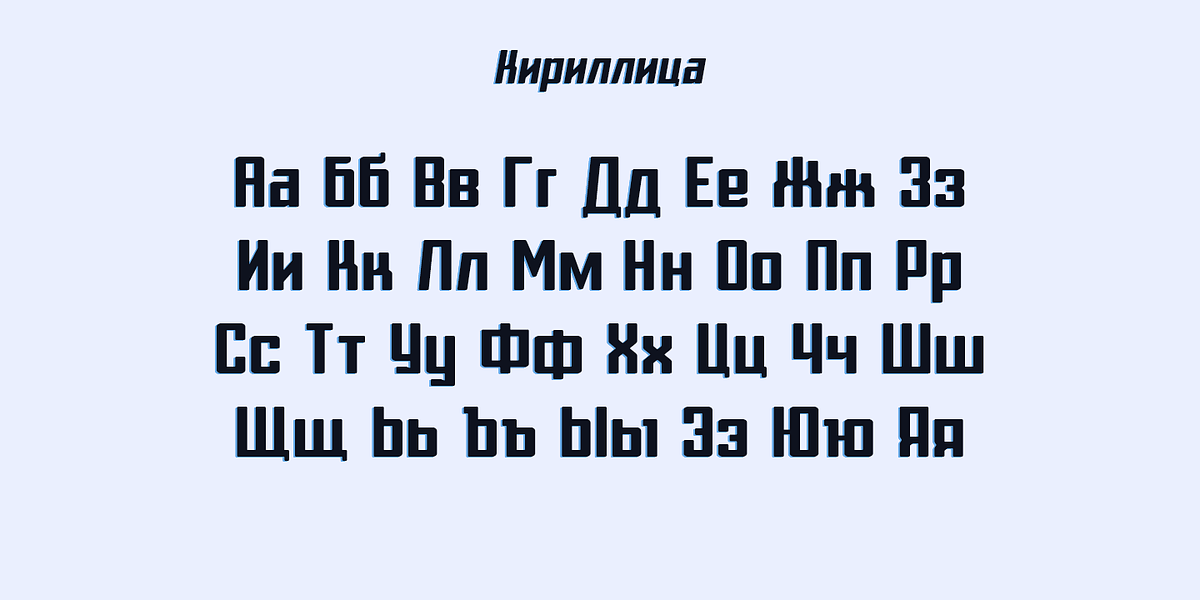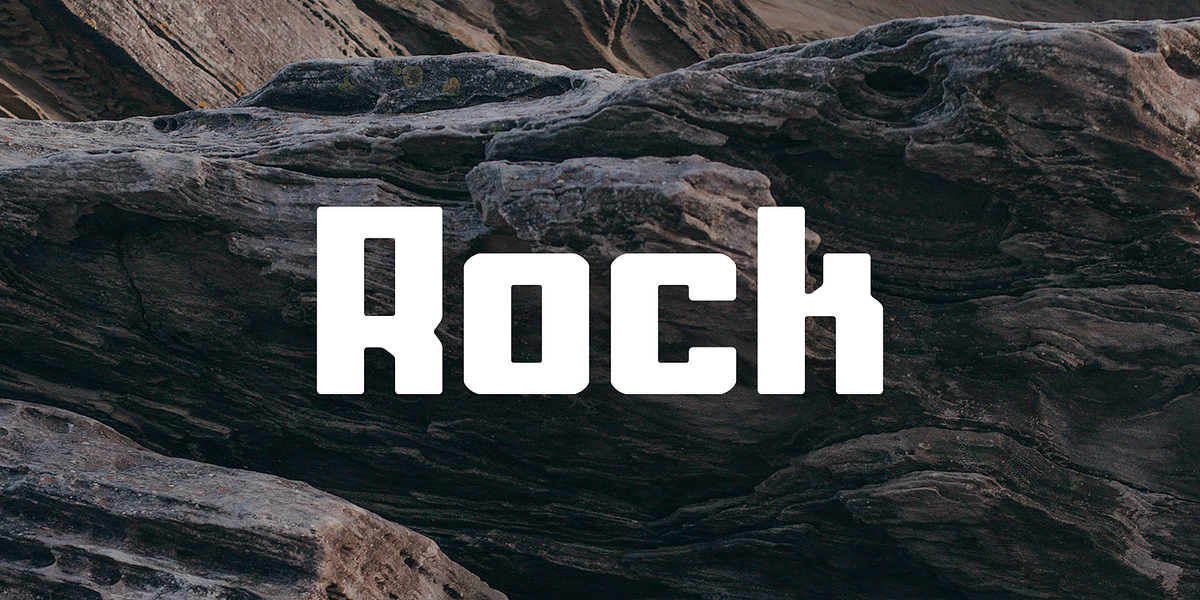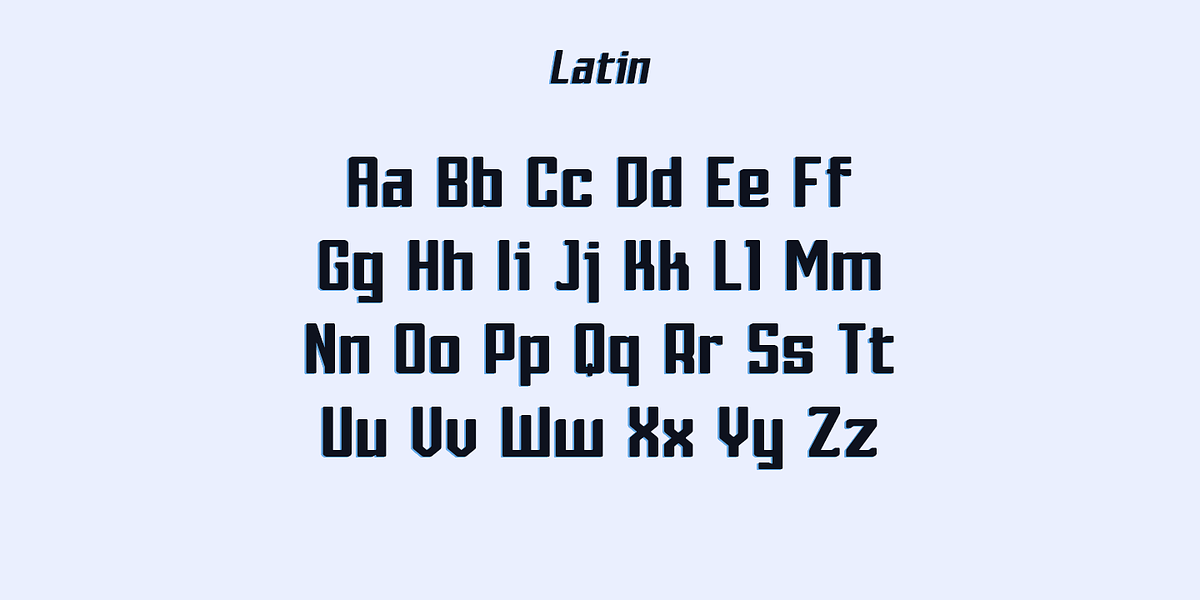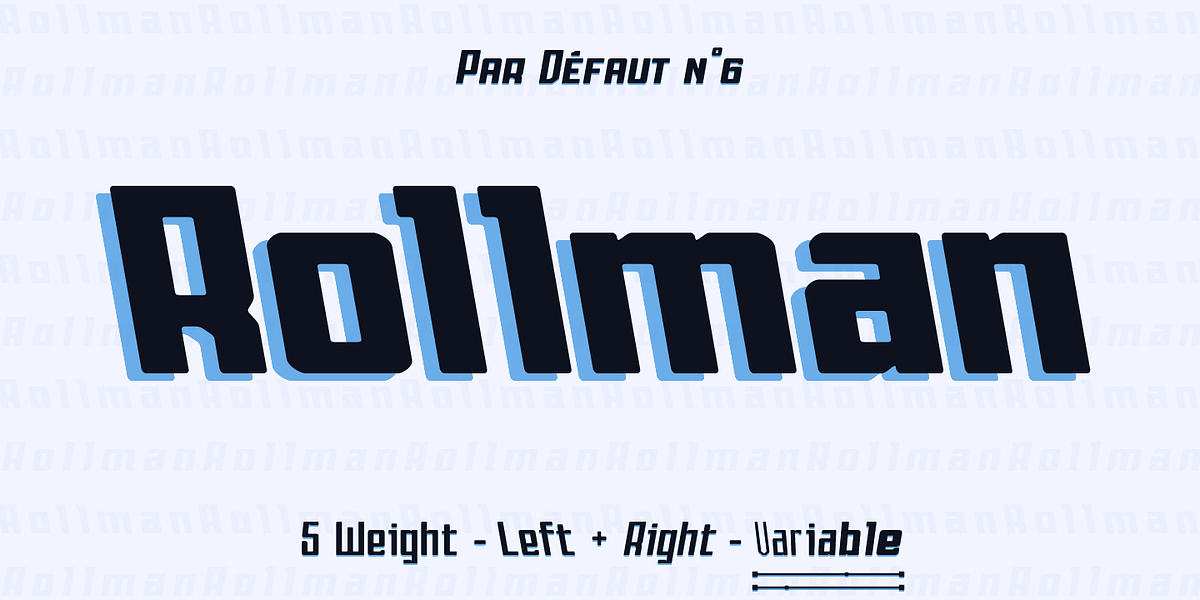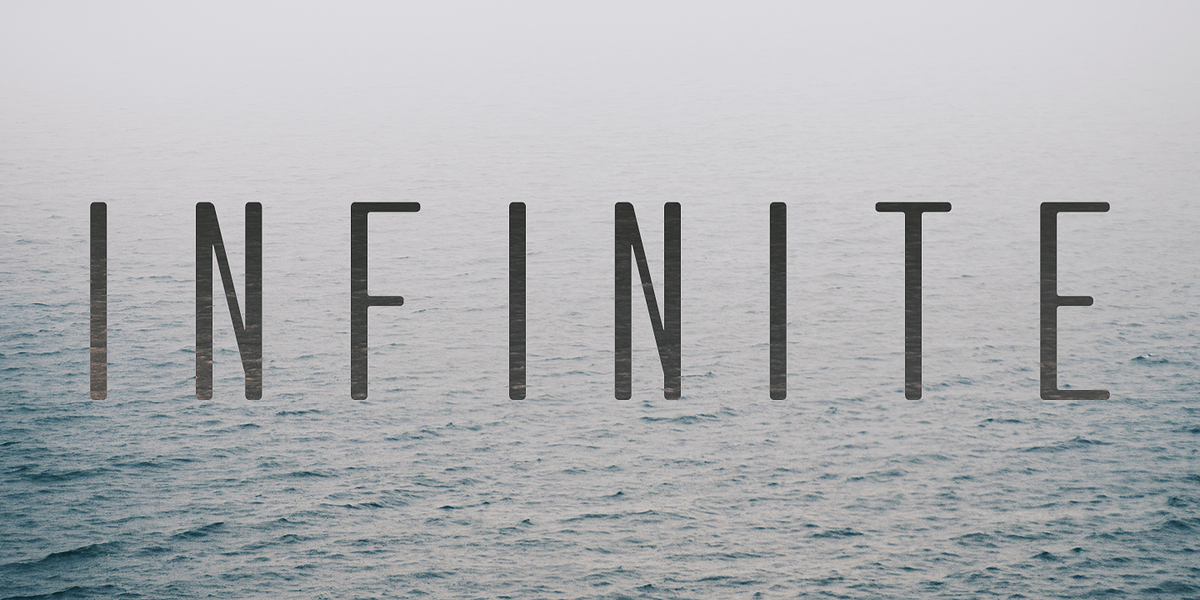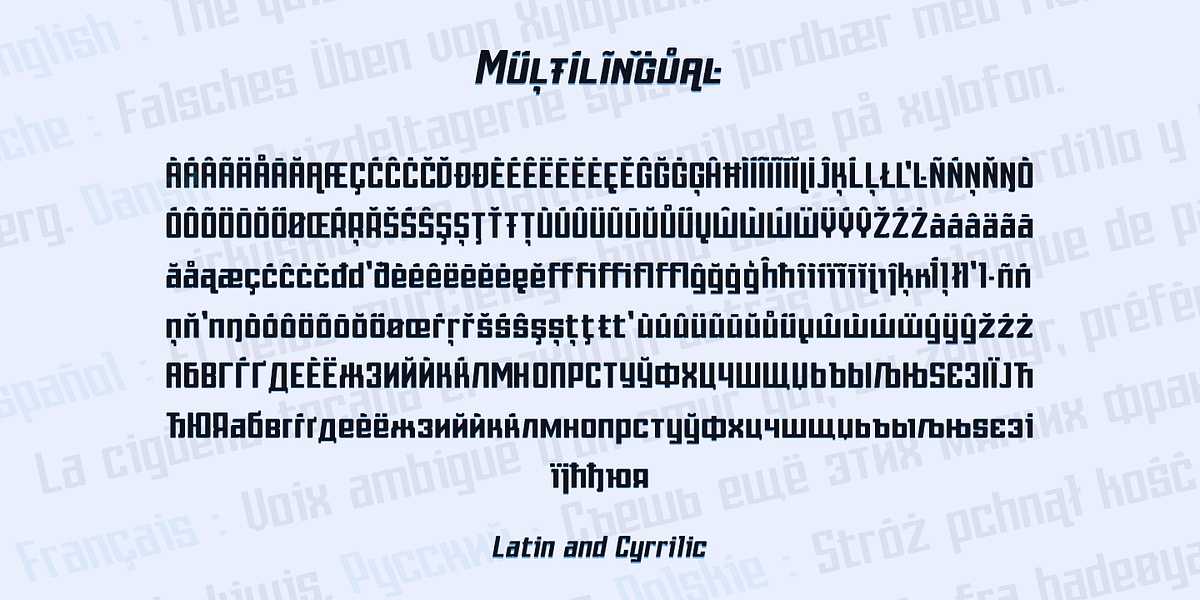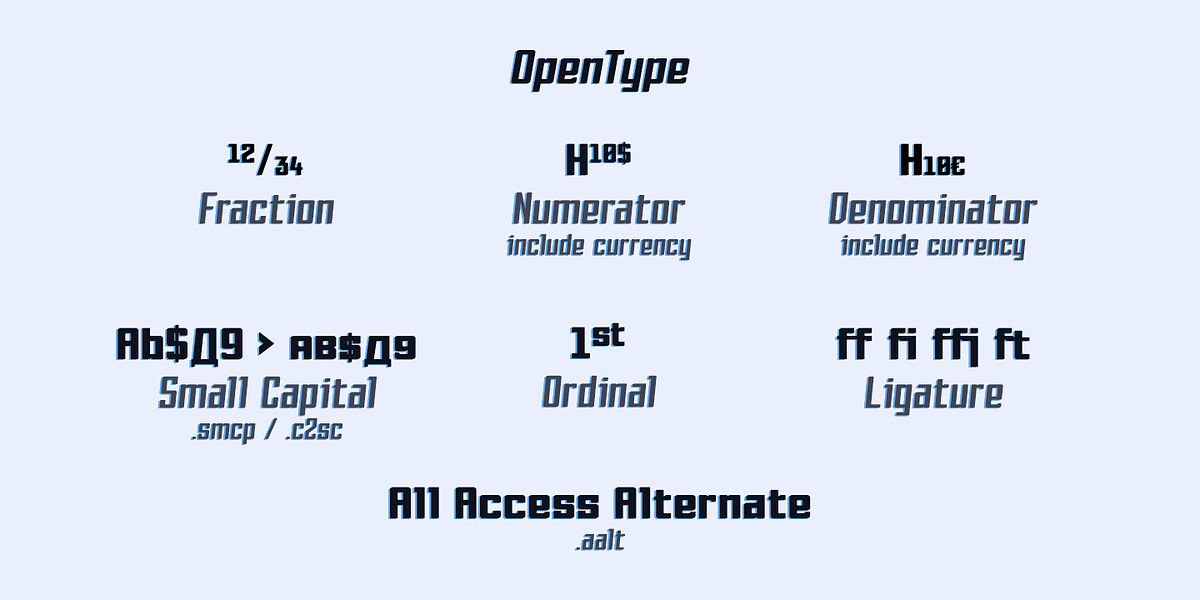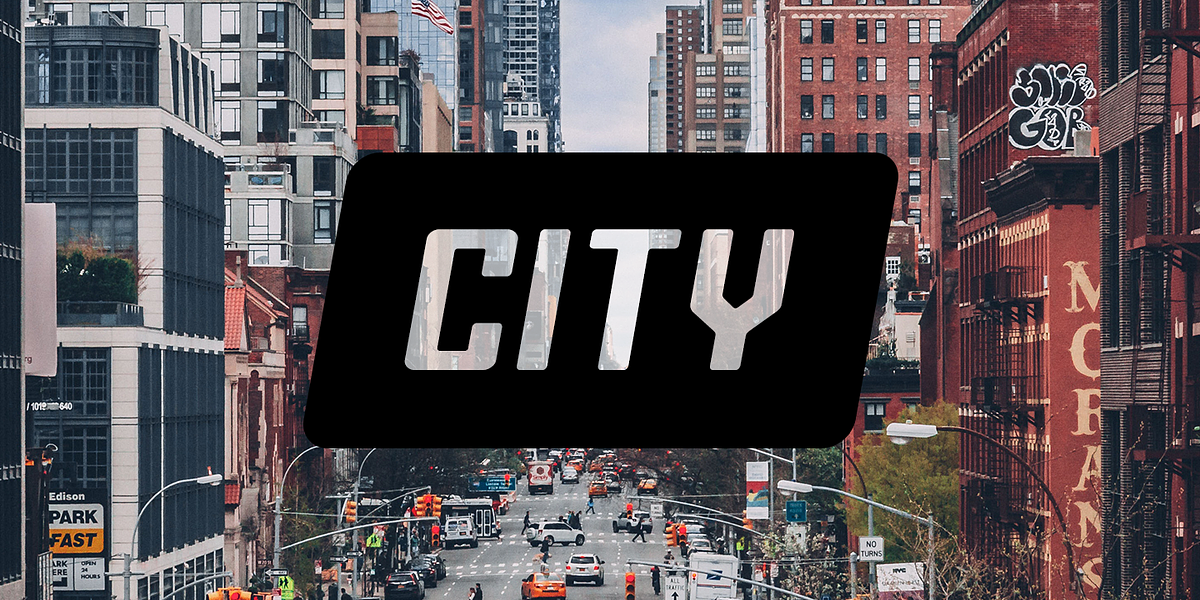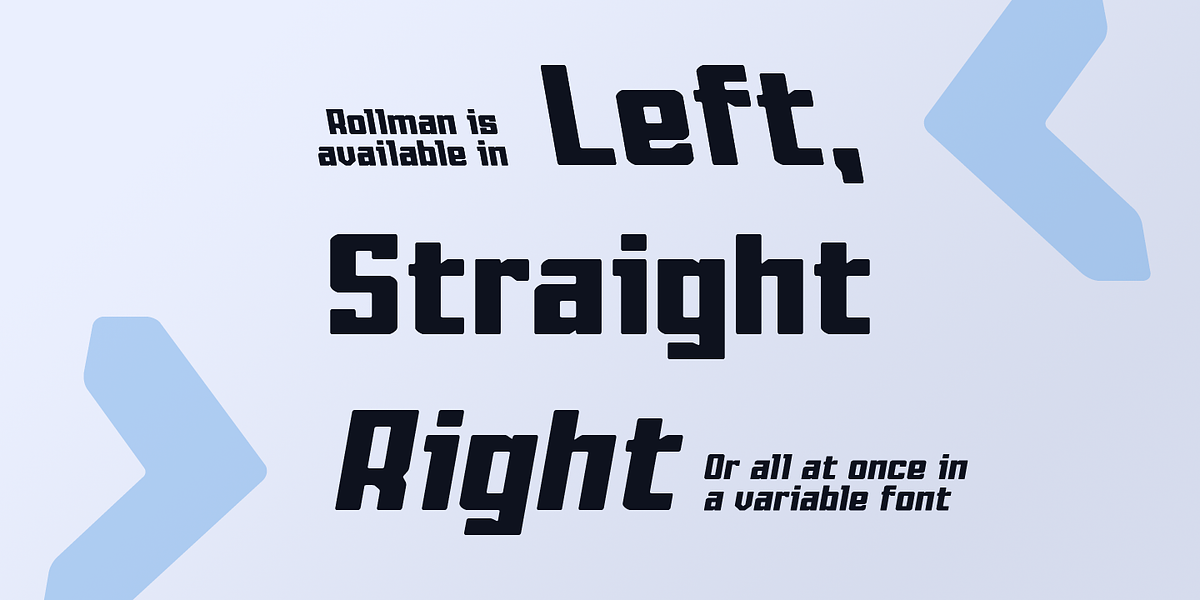
Rollman
Rollman is a contemporary display typeface characterized by its strong geometric forms and bold weight options. Its design evokes a sense of modernity and technology, making it well-suited for headlines, titles, and branding applications where a striking visual impact is desired. The font family includes multiple weights and widths, as well as OpenType features like ligatures, fractions, and alternate characters, allowing for versatile typographic expression.